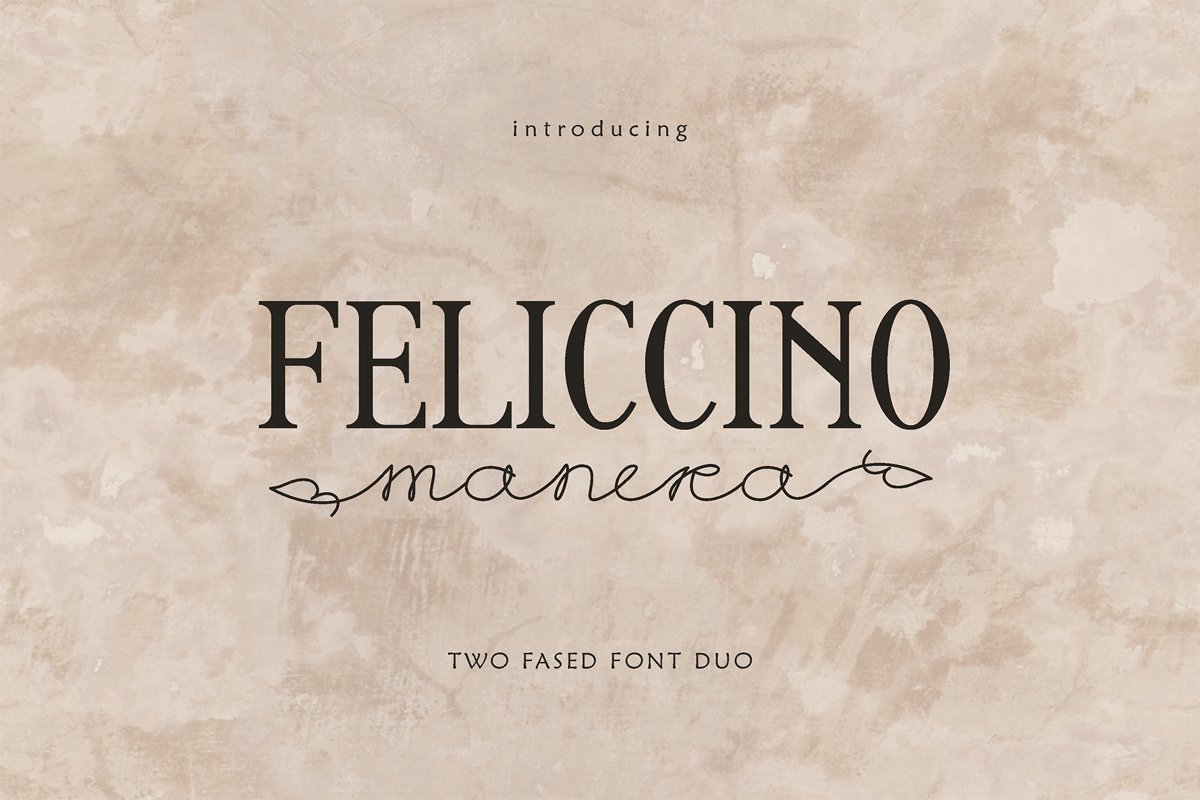
Feliccino Manera Two Faced Font Duo
Manera
Feliccino
Feliccino Holiday
Two faced of condensed serif font and the original handwritten script are perfect for the most daring ideas of your design. The classical style can be combined with the festive both as a whole and in separate glyphs. Using a handwritten script that has four types of start and end swashes, you can create original signatures and combine them with any font formation.